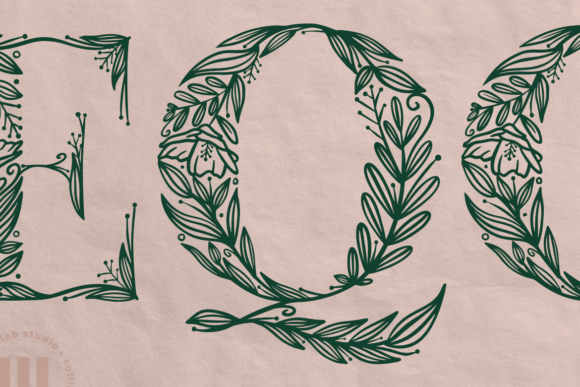
Introducing Eqo Font, the perfect choice for those seeking an extraordinary and captivating decorative font. Created by colllabstudio, this font is sure to leave a lasting impression on anyone who lays eyes on it. With its authentic feel and unparalleled charm, Eqo Font is the ultimate companion for your creative endeavors.
Are you planning a dreamy wedding? Look no further! Eqo Font is the ideal font for wedding signs that will add a touch of elegance and sophistication to your special day. Imagine your guests being mesmerized by the exquisite details as they enter your venue. This font truly sets the stage for a magical celebration of love.
But Eqo Font doesn't stop there. It opens up a world of possibilities for all your design needs. Create stunning and unforgettable wedding invitations that reflect your unique style and personality. Let Eqo Font be the voice that speaks volumes about your love story, leaving your guests enchanted and eagerly awaiting the big day.
Stationary art becomes a masterpiece with Eqo Font. Express your creativity and transform ordinary paper into extraordinary works of art. Whether you're designing personalized notepads, eye-catching posters, or captivating flyers, Eqo Font adds that special touch that sets your creations apart from the rest.
In the age of social media, standing out is crucial. Eqo Font allows you to craft visually striking posts that demand attention and evoke emotions. Whether you're promoting your business or sharing your passion, this font ensures that your message is heard loud and clear. Get ready to watch your engagement soar as you captivate your audience with the allure of Eqo Font.
And let's not forget the power of a heartfelt greeting card. Eqo Font adds a touch of whimsy and charm, making your words even more meaningful. Whether it's a birthday, anniversary, or simply a heartfelt message to a loved one, Eqo Font brings your sentiments to life in a way that leaves a lasting impression.